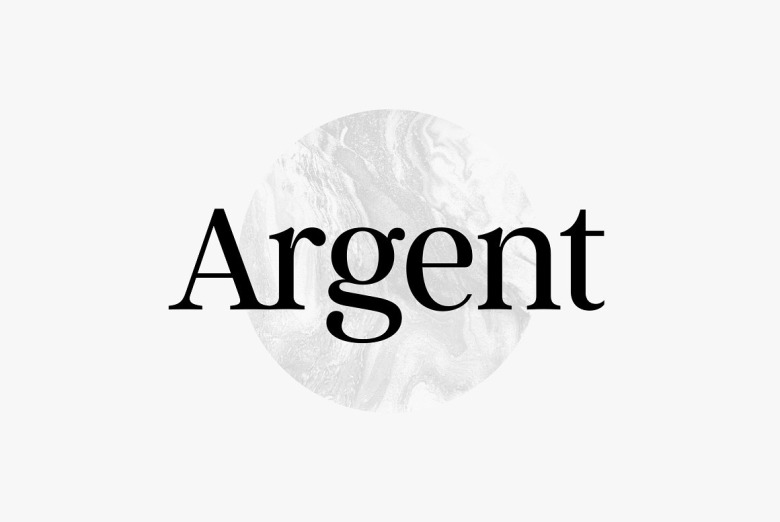
Argent CF Font
Argent is dashing and expressive, with a pronounced x‑height and evocative, flowing letter­forms. Featuring true italics, wide language support, a host of OpenType features and lots of character, Argent a tribute to the past and a step into the future.
Argent CF Serif Font Family